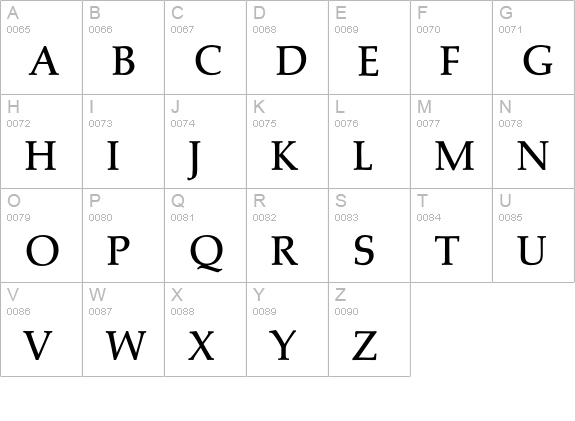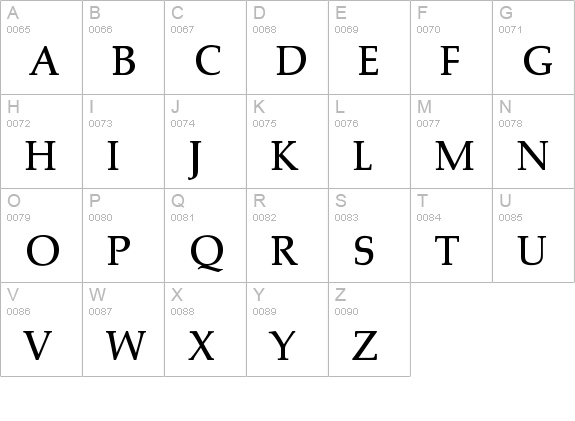
Marathon-Medium Font Details
Marathon-Medium is a balanced, medium-weight variant in the Marathon typeface family \xE2\x80\x94 well suited to sub-headlines, navigation, and balanced editorial work.
Marathon-Medium is a versatile and elegant font that strikes the perfect balance between professionalism and creativity. Its clean and modern design makes it suitable for a wide range of projects, from branding and logo design to website headers and print materials. With its medium weight, Marathon-Medium exudes a sense of stability and legibility without sacrificing its unique personality and style. The letterforms are meticulously crafted, ensuring smooth curves and sharp angles that capture attention and make a lasting impression. This font is perfect for those seeking a font that stands out from the crowd, while still maintaining a sense of professionalism. Whether you're designing a sleek corporate brochure or a trendy fashion magazine, Marathon-Medium has got you covered. What's even better is that Marathon-Medium is available for free! You can easily download it at FontsMarket.com, a trusted source for high-quality fonts. Say goodbye to expensive font licensing fees, as Marathon-Medium allows you to unleash your creativity without breaking the bank. So why wait? Take your designs to the next level with the elegance and versatility of Marathon-Medium. Download it today for free at FontsMarket.com and let your imagination run wild.